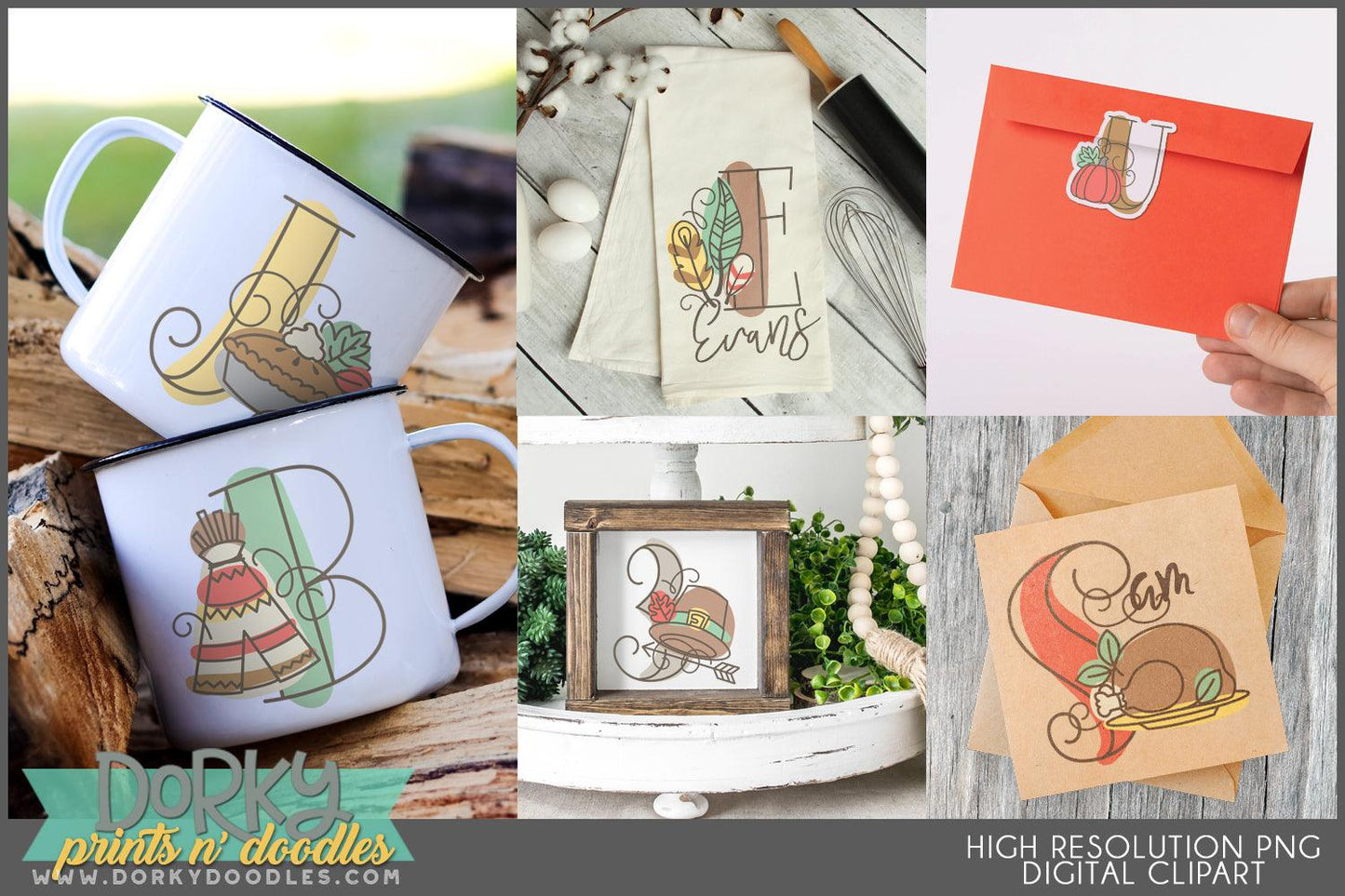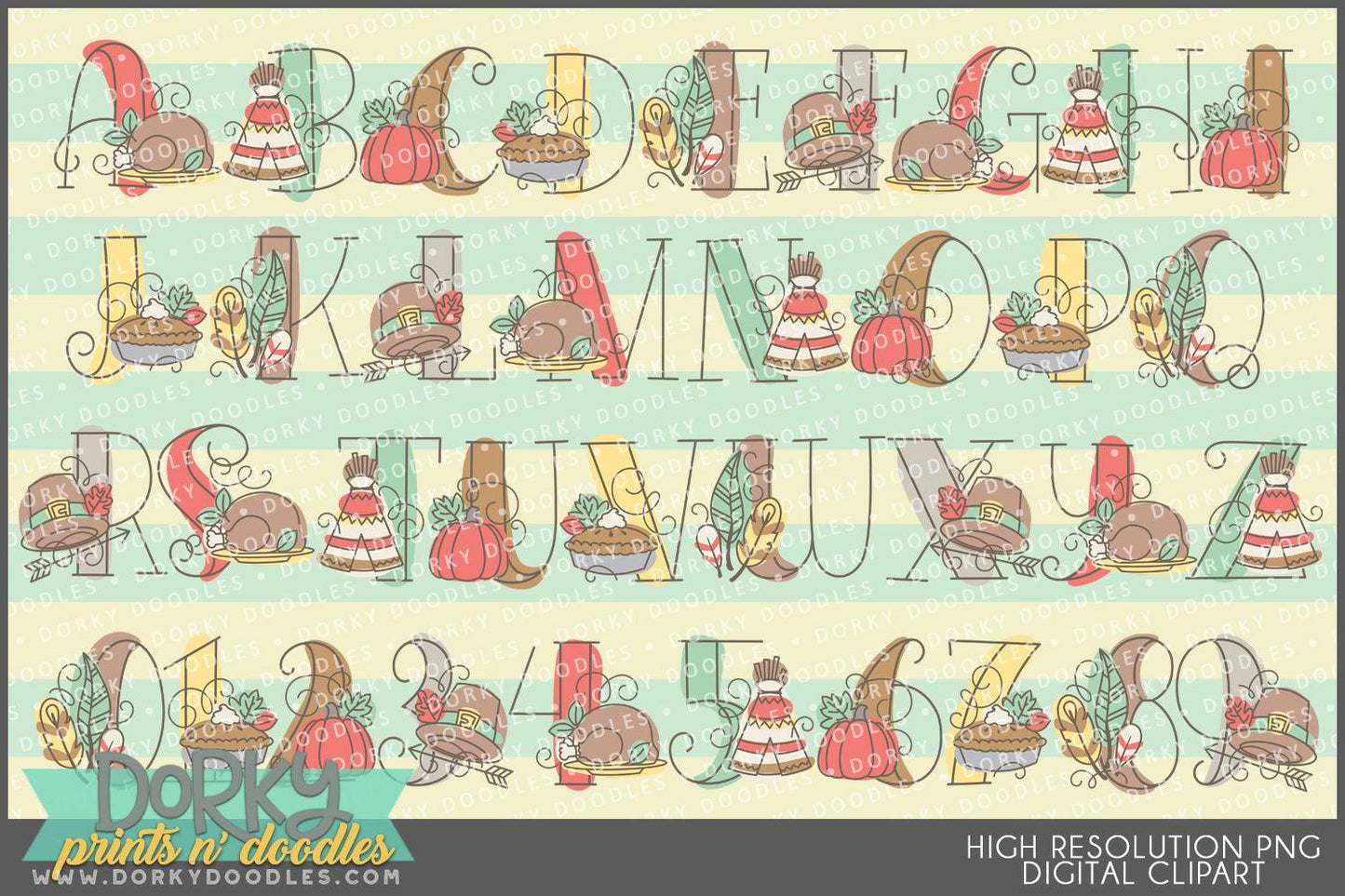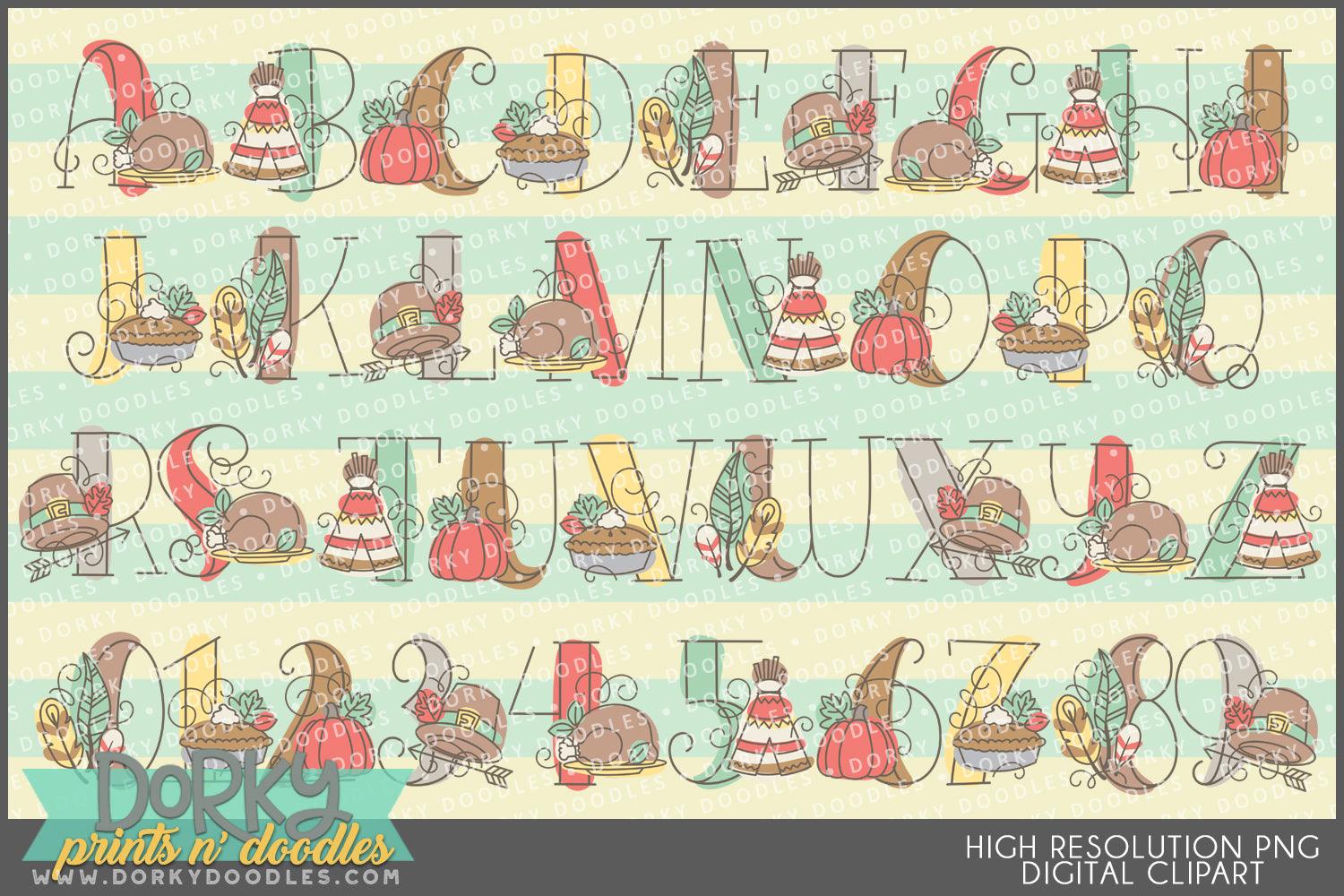
Sketchy Thanksgiving Alphabet Clipart
These cute Thanksgiving turkey images look fabulous in scrapbooks, planners, party invitations, cookies, stickers, and decor! You will get 36 Digital Clip Art images in high resolution PNG format (they come as a ZIP file that you can download instantly once payment has cleared).
• the full alphabet and numbers 0-9 using pumpkins, pie, teepees, pilgrim hats, and feathers